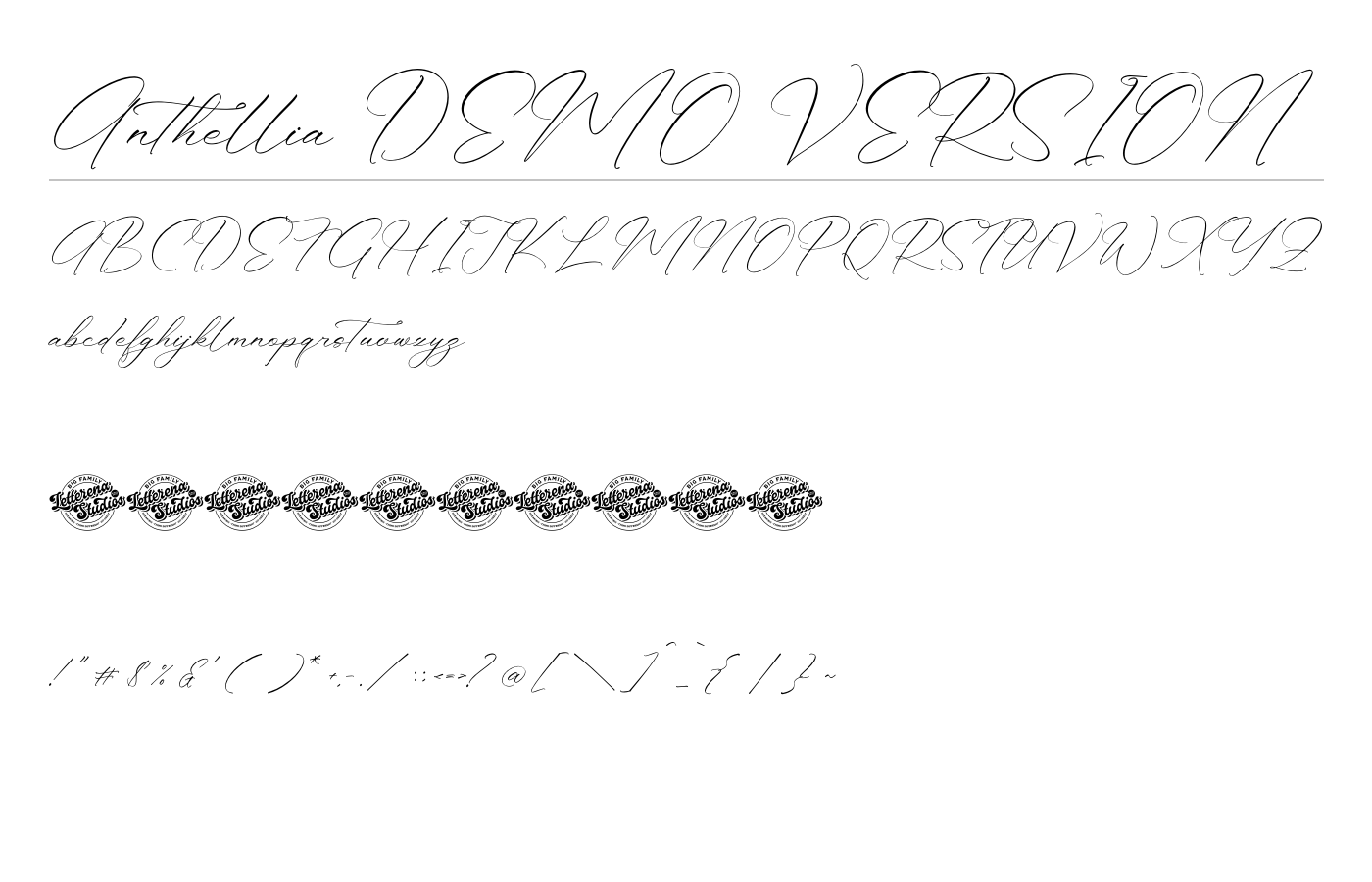
Anthellia DEMO VERSION is an elegant, thin script font with a delicate and flowing handwritten style. Its fine lines and graceful letterforms evoke a sophisticated and refined feel, making it ideal for luxury branding, invitations, and artistic projects where a touch of elegance and personal charm is desired. This font works best in subtle, decorative uses rather than dense text, enhancing designs with a light, airy, and stylish presence.
Anthellia DEMO VERSION Font
About Anthellia DEMO VERSION Font